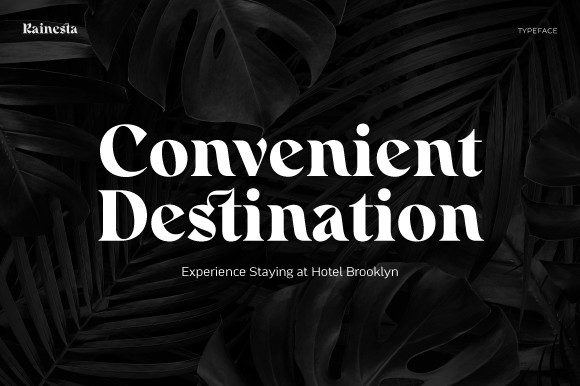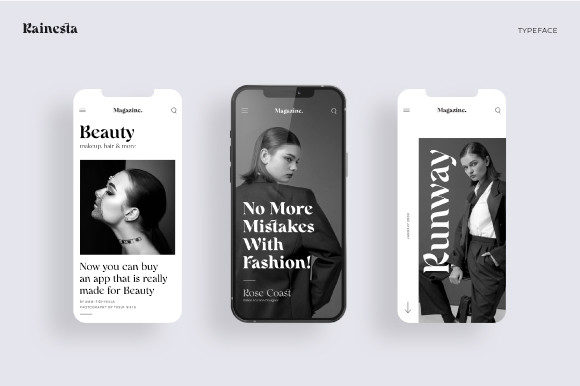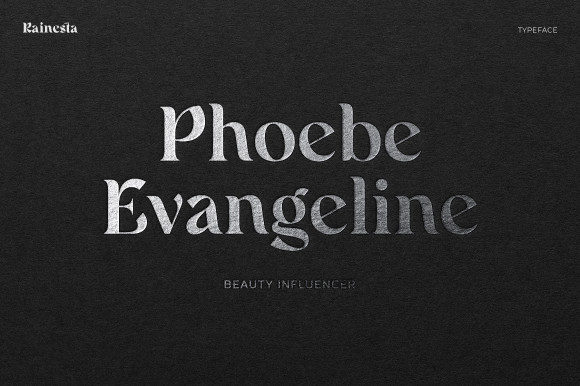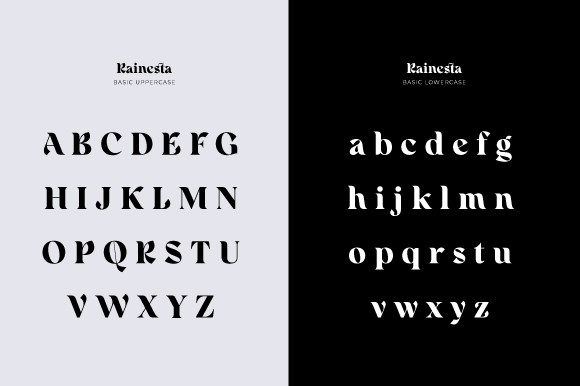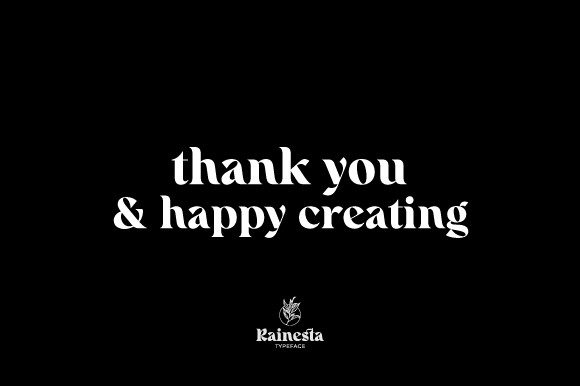
Introduction to Rainesta Font
You’ve just landed the perfect gig, and it’s time to bring your creative vision to life. As a designer, there’s nothing quite like the rush of excitement that comes with starting a new project. The blank slate, the endless possibilities, and the opportunity to make a lasting impression on your audience. But, as we all know, it’s the little details that can make or break a design. That’s where the Rainesta Font comes in – a versatile and high-quality font that’s perfect for bringing your creative project to the next level.
Whether you’re working on a website, an ebook, or a packaging design, the Rainesta Font is an invaluable resource that can elevate your design and make it stand out from the crowd. With its unique serif style and transparent background, this font is a game-changer for designers who want to create high-quality designs that truly pop.
Key Features of Rainesta Font
- Comes with a transparent background, allowing for easy customization and versatility.
- Unique, elegant design with a modern twist, making it perfect for a wide range of creative projects.
Honest Review: Rainesta Font
I recently stumbled upon the Rainesta Font while searching for a design resource to enhance my creative project. I was immediately drawn to its sleek and modern aesthetic, making it perfect for any design project that requires a touch of sophistication.
- ✨ High-quality design that’s perfect for both digital and print projects.
- ✨ Transparent background makes it easy to use in various design applications.
However, I did encounter some limitations with the Rainesta Font.
- ⚠️ Limited font variations, which may not be suitable for complex design projects.
- ⚠️ May not be as customizable as other fonts, which could be a concern for designers who require specific font adjustments.
Overall, I’m impressed with the Rainesta Font’s quality and design. While it may have some limitations, it’s still a great resource for designers working on creative projects. I’d definitely recommend it as a design resource for anyone looking for a modern and sleek font.
Tips for Getting the Most Out of Rainesta Font
For best results, use the Rainesta Font in conjunction with other design elements to create a cohesive and visually appealing design. Experiment with different font sizes, colors, and styles to find the perfect look for your creative project.
The Rainesta Font is perfect for a variety of creative projects, including logos, graphics, and typography-based designs. Its high-quality design and transparent background make it ideal for use in a range of applications, from print to digital media.